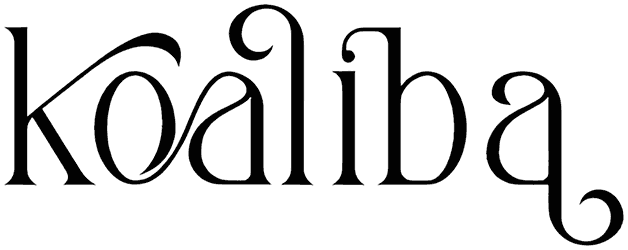
Koaliba Font
Koaliba font can be a tall and sturdy column with timeless elegance for your design. With its classic letters and faint flourishes, this serif font offers a sense of tradition and grace that can bring credibility and glory to your writings while also as simple.
From newspaper headlines to book covers, you can design with this serif font and bring a professional effect to your work. So don’t settle for ordinary typography, and elevate your work with the endless beauty of Koaliba.